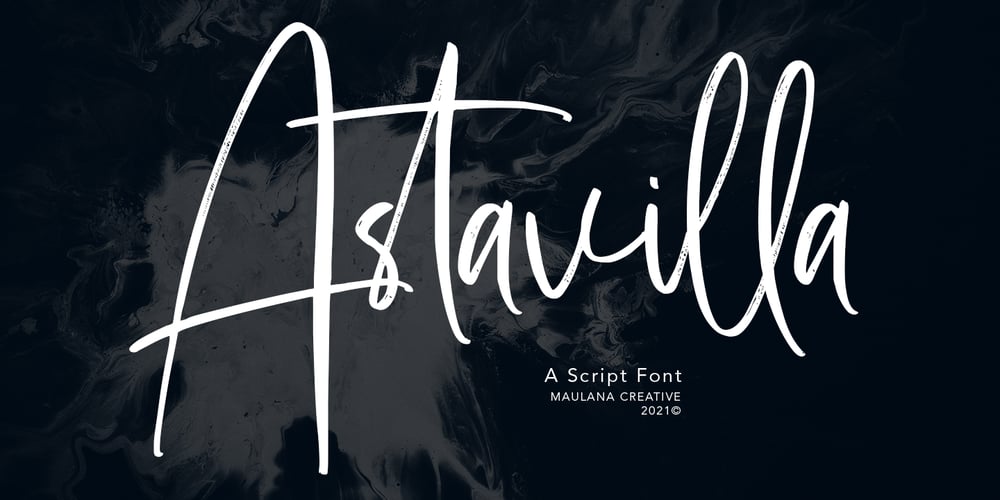
Astavilla
Astavilla font
Astavilla Font Family was designed by Gilang Maulana and published by Maulana Creative. Astavilla contains 1 styles and family package options. Astavilla handwritten script font, with contrast felt-tip stroke, uprights and fun character. It has Opentype features ligatures of character and alternate lowercases, To give you an extra creative work. Astavilla script font support multilingual more than 100+ language. This font is good for logo design, Social media, Movie Titles, Books Titles, a short text even a long text letter and good for your secondary text font with sans or serif. Make a stunning work with Astavilla font. Cheers, MaulanaCreative